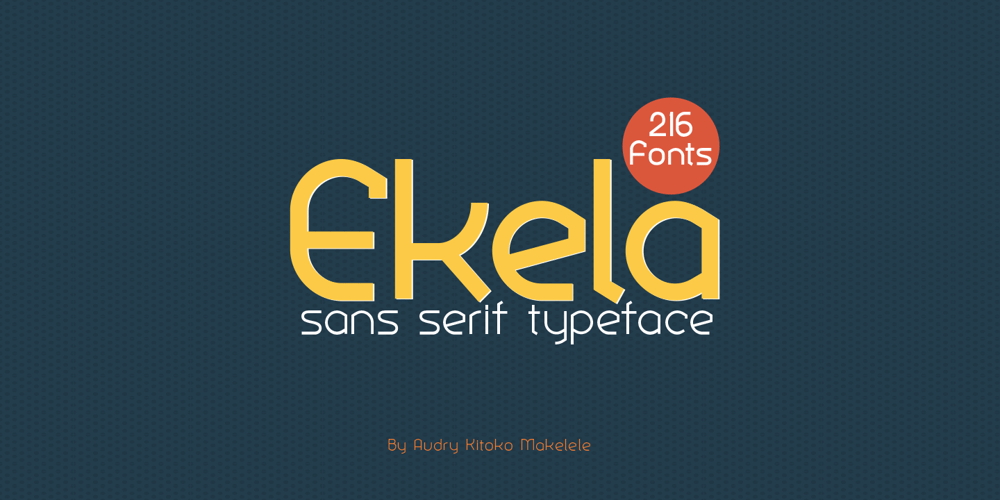
Ekela
Ekela font
Ekela Font Family was designed by Audry Makelele and published by AukimVisuel. Ekela contains 210 styles and family package options. Ekela family has 216 styles in 5 versions: Normal, Round, Circle, Punch and Round Punch.Ekela family is a neat, unique sans serif simple font with minimal and round letters. It can easily be combined with an incredibly large set of projects, so add it to your creative ideas and notice how it sets them apart! Suitable for a wide variety of designs thanks to its neat styling, Ekela family has the potential to become your favorite font, whatever the occasion!